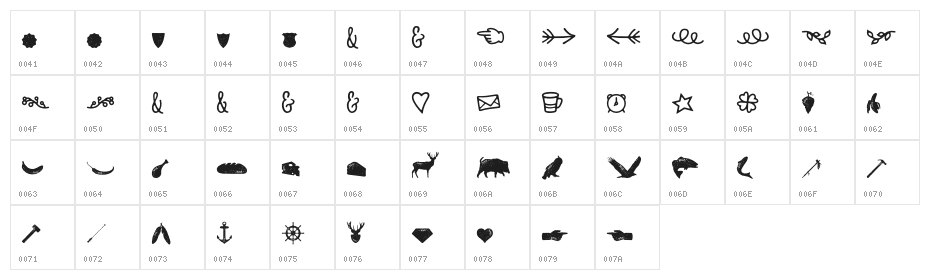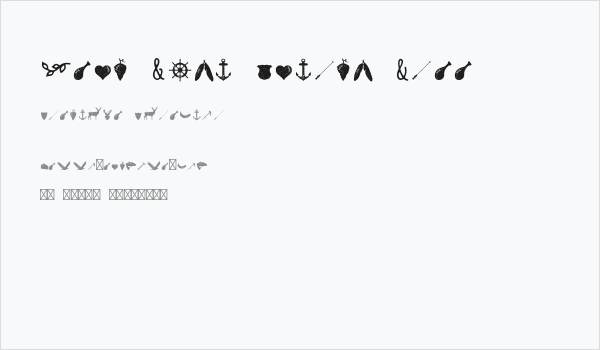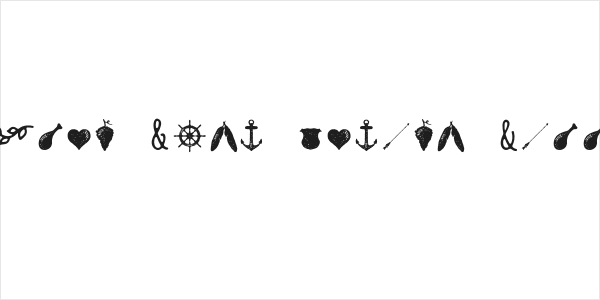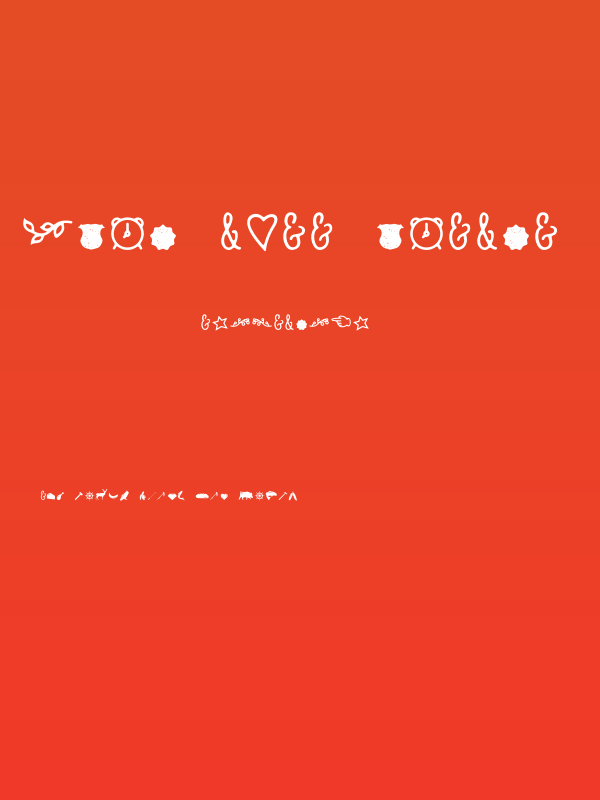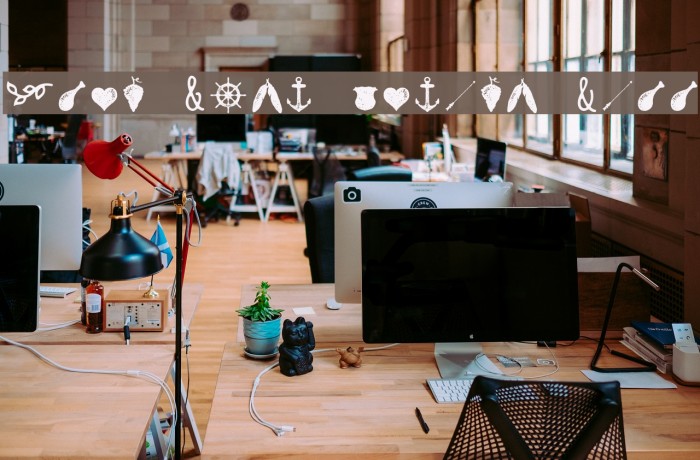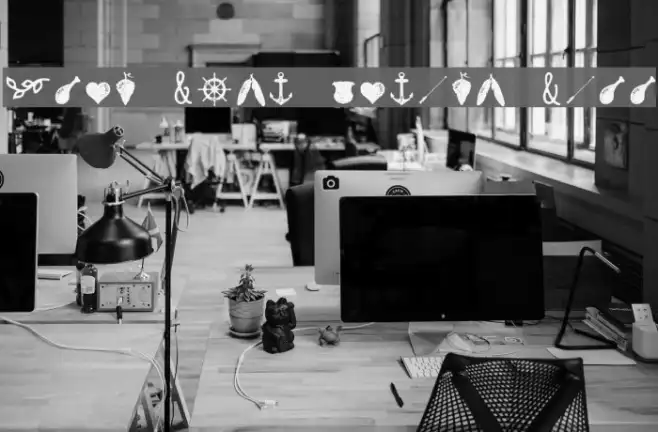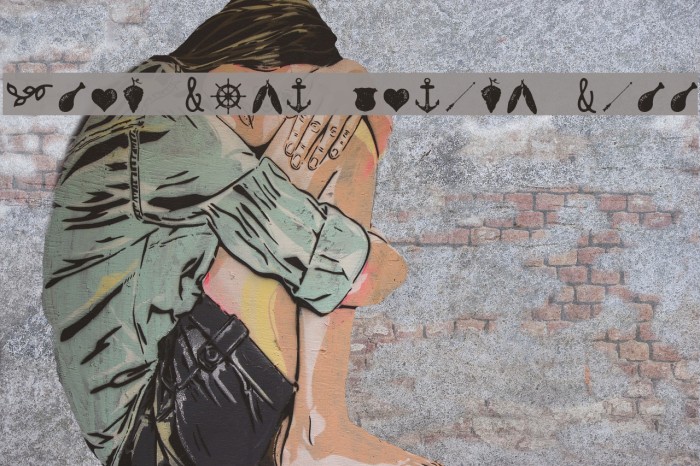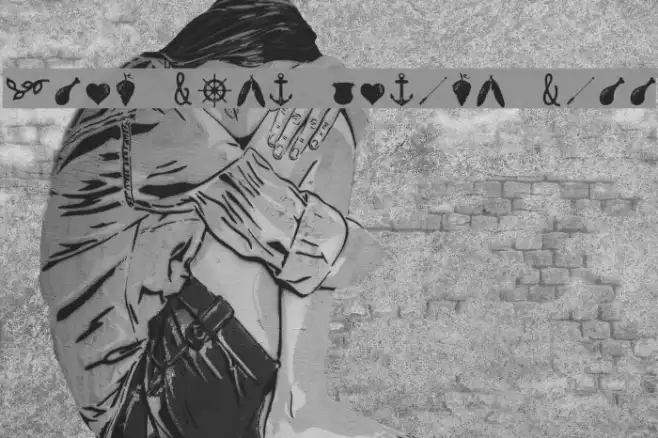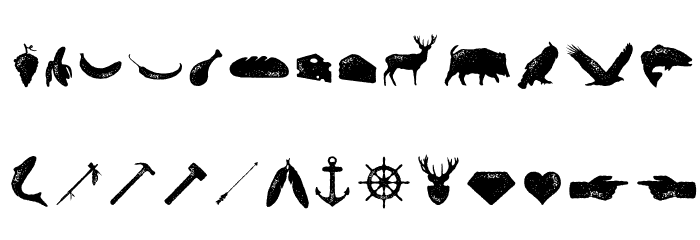
Nexa Rust Extras Free Font
Nexa Rust Extras Free Description
This collection features a diverse array of decorative elements and icons, each with a rustic and hand-drawn aesthetic. The elements include shields, arrows, swirls, and various nature-inspired motifs like leaves and animals. The style is rough and textured, giving a vintage and handcrafted feel. These elements are perfect for adding a personal touch to designs, with a playful yet rugged charm. The icons vary from everyday objects like envelopes and clocks to more thematic symbols like anchors and animals, all maintaining a consistent artistic style.
| Use Case | Logos, Decorative elements, Craft projects |
| Proposed Projects | Ideal for crafting projects, rustic-themed invitations, branding for artisanal products, or any design needing a vintage, handcrafted touch. |